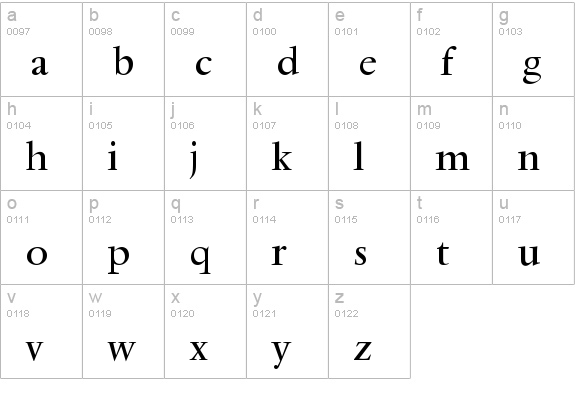
VendomeT Font Details
VendomeT is a stunningly elegant font that effortlessly combines traditional sophistication with a modern twist. Its graceful letterforms and exquisite details make it the perfect choice for creating sophisticated designs that exude class and refinement. With its delicate serifs and beautifully balanced proportions, VendomeT adds a touch of timeless elegance to any project. Whether you're designing a wedding invitation, a luxurious brand identity, or a high-end product packaging, this font will elevate your design to new heights. What sets VendomeT apart is not only its impeccable design, but also its accessibility. It is a font that is freely available to download at FontsMarket.com, making it accessible to designers of all levels. This means that you can add a touch of luxury to your projects without breaking the bank. The versatility of VendomeT is another reason why it has become a favorite among designers. It works beautifully in both large headlines and small body text, ensuring that your message is always clear and legible. Its wide range of weights and styles further enhances its flexibility, allowing you to create visually stunning designs with ease. Whether you're a professional designer or a hobbyist, VendomeT is a font that is sure to impress. Its timeless beauty, accessibility, and versatility make it a must-have in any designer's toolkit. So go ahead, download VendomeT from FontsMarket.com today and unleash your creativity with this stunning font.